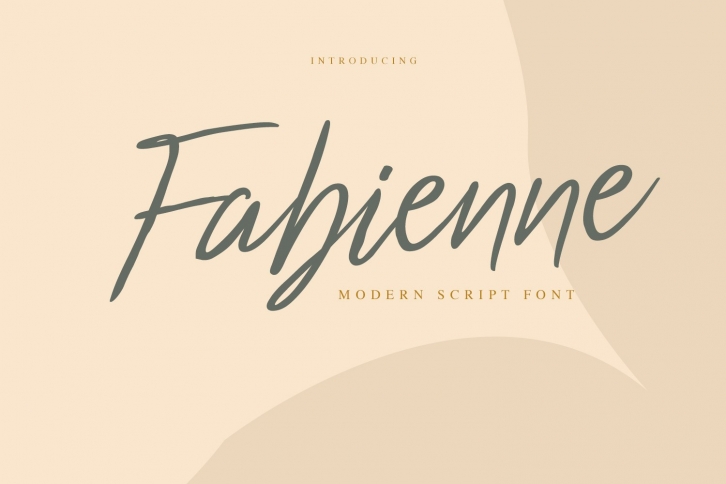
Fabienne is a beautiful font that was designed by creativemedialab. It's a great choice for designers and creatives who need such a font. It was released on October 24, 2019 and the file size is 18.52 MB. Fabienne may give a more youthful, expressive and casual look to your project. It is a very beautiful, refined, elegant, and high-quality font.